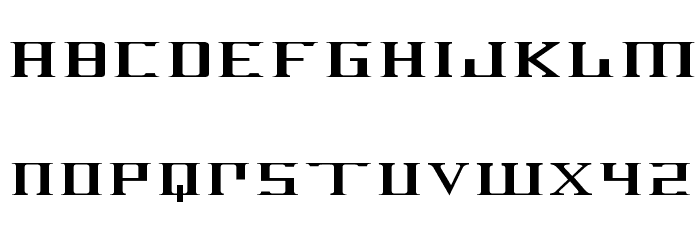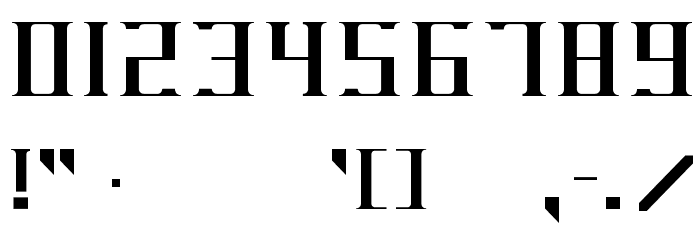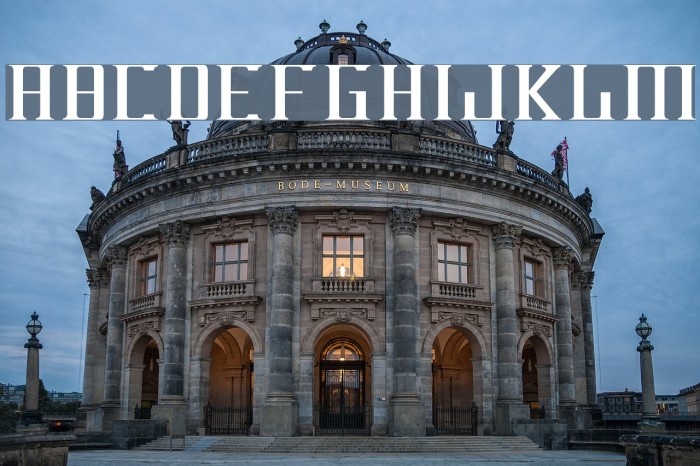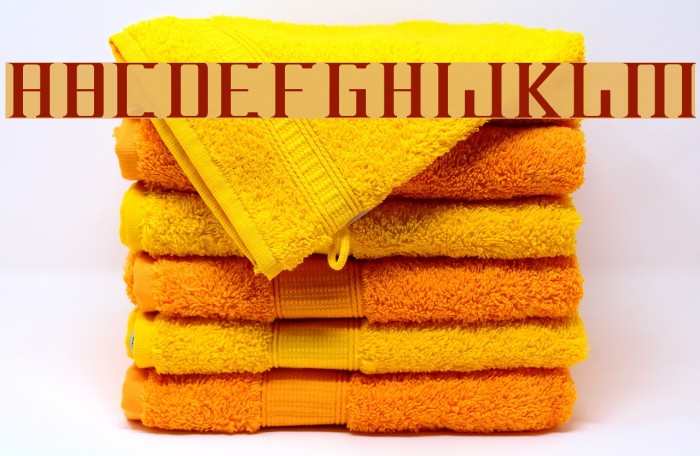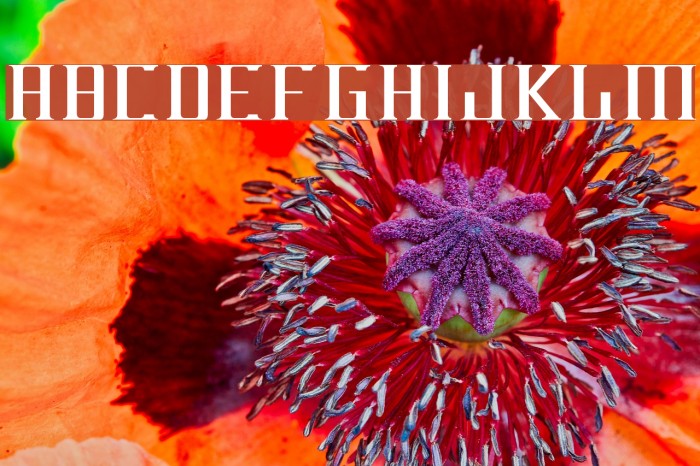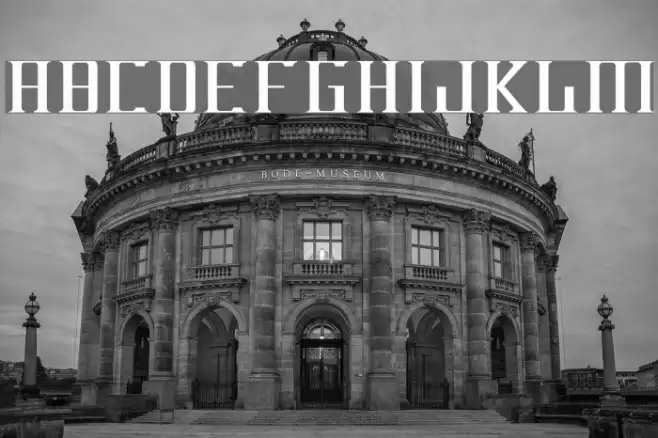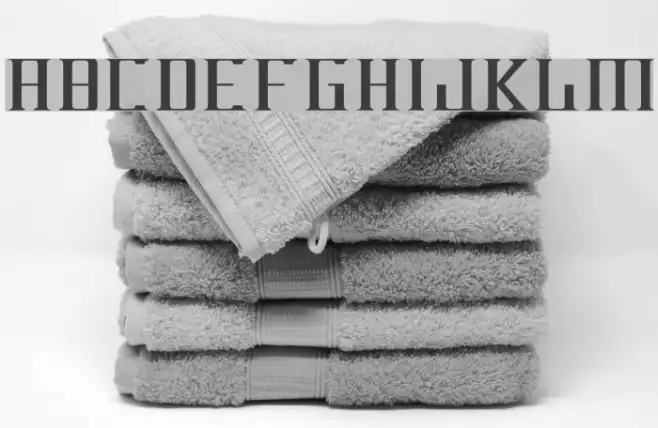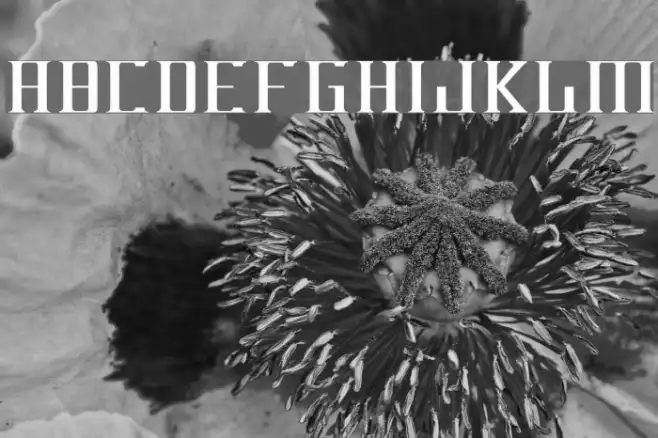
DarkWind Font
This font features a bold and striking design with a modern, angular aesthetic. The characters are crafted with sharp edges and a geometric structure, giving it a futuristic and edgy appearance. The uppercase and lowercase letters maintain a consistent style, with a uniform height and width that enhances readability. The numerals and special characters are designed to match the overall theme, providing a cohesive look across all elements. This font is ideal for projects that require a strong visual impact and a contemporary feel.
A bold, angular font with a modern, geometric design.
- Proposed Projects: Ideal for branding, posters, video game titles, and tech-related designs.